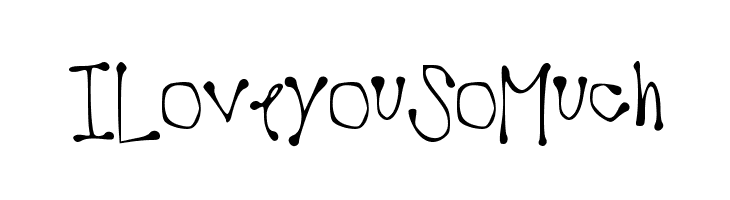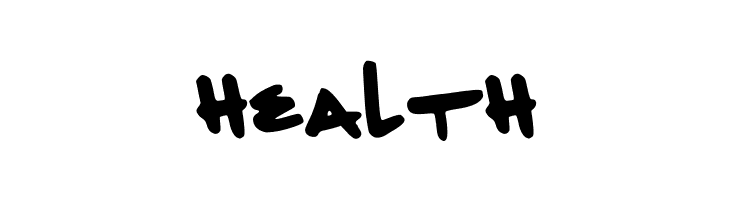
A playful, hand-drawn font with quirky, irregular strokes and dynamic character shapes.
A bold, hand-painted style font with dynamic, expressive strokes.
An intricate, decorative font with mystical, ornate letterforms.
An illustrative and decorative font with themed graphic characters.
A bold, hand-drawn font with rugged, irregular characters.
A playful, handwritten font with whimsical loops and curves.
A pixelated, digital watch-inspired font with characters enclosed in watch outlines.
A bold, angular font with a geometric and edgy design.
A bold, expressive brush script font with dynamic strokes and a hand-painted look.
A charming and elegant script font with flowing, cursive letters.